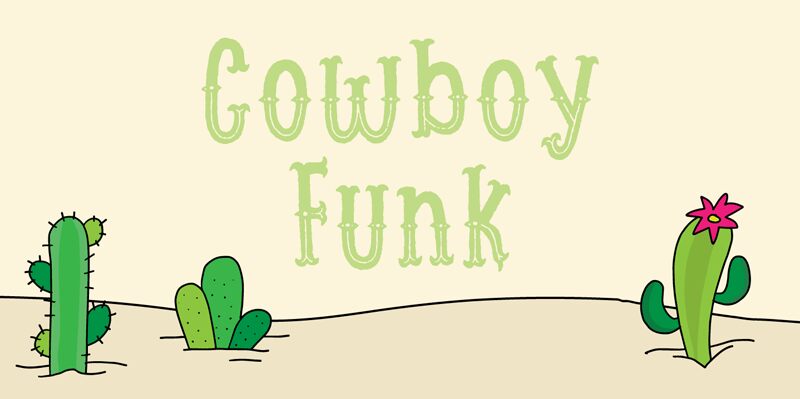
Cowboy Funk, designed by Pizzadude, is a charming and lively display font. With its semi-light weight and condensed width, this versatile typeface is perfect for creating eye-catching headlines, logos, or posters that demand attention. Its western and cartoon-inspired style adds a touch of playful nostalgia to any project.
Whether you're designing a vintage-themed website, crafting an adventurous children's book cover, or even revamping a classic saloon menu – Cowboy Funk will bring an unmistakable charm to your designs and transport your audience to the wild west with its unique personality.